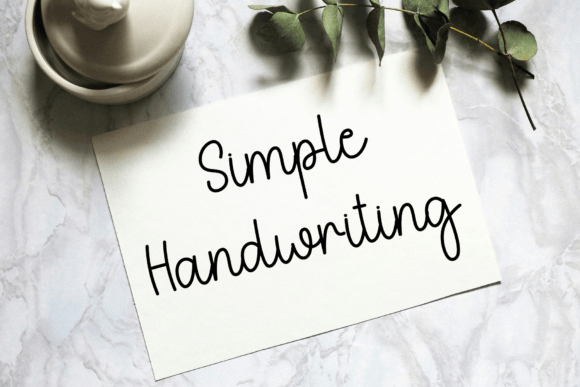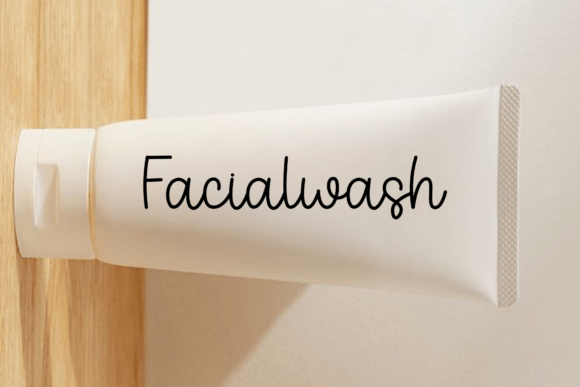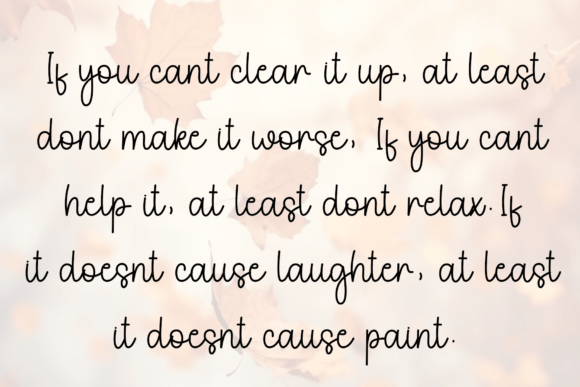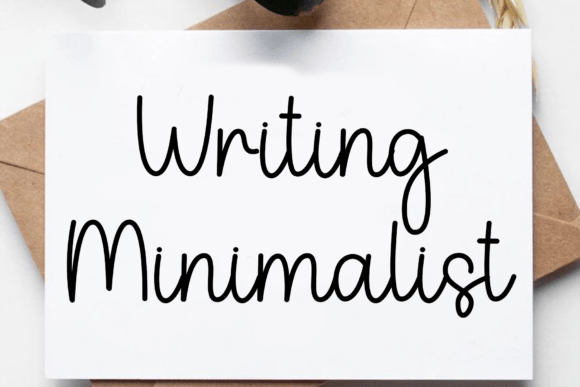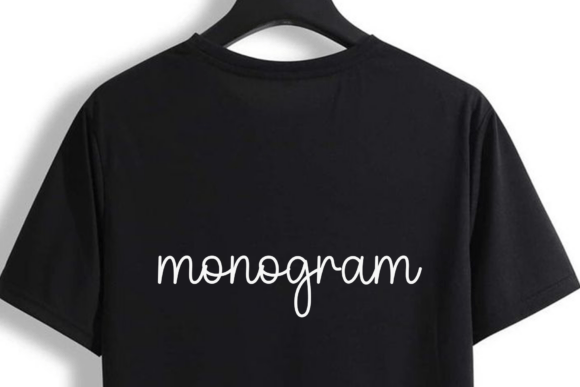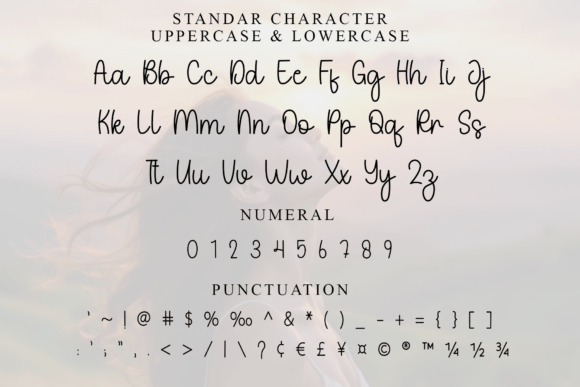
Introducing Envellope Font: The Festive and Merry Typeface for Holiday Designs
Are you looking for a font that embodies the spirit of the holiday season? Look no further than Envellope Font, a decorative and whimsical typeface that adds a touch of enchantment to your designs. With its festive elements and nostalgic ambiance, Envellope Font is perfect for greeting cards, gift tags, and holiday-themed projects.
The Magic of Envellope Font
Envellope Font is a carefully crafted typeface that captures the essence of the holiday season. Its decorative elements and whimsical flair make it an ideal choice for designers and crafters who want to add a touch of magic to their work. Whether you’re creating greeting cards, gift tags, or holiday-themed projects, Envellope Font brings a cheerful and nostalgic ambiance to your words.
One of the standout features of Envellope Font is its PUA encoding, which makes it easy to access all of the amazing glyphs and ligatures. This means that you can effortlessly add decorative elements to your designs, taking them to the next level. With Envellope Font, you can let your typography shine with the magic of beautiful font.
Perfect for Holiday Designs
Envellope Font is specifically designed for holiday-themed projects, making it a versatile and valuable addition to your font collection. Here are just a few ways you can use Envellope Font to elevate your designs:
- Greeting Cards: Create festive and personalized greeting cards for friends and family with Envellope Font. Its decorative elements and whimsical flair make it perfect for holiday cards.
- Gift Tags: Add a touch of magic to your gift tags with Envellope Font. Its nostalgic ambiance and cheerful vibe make it ideal for gift tags and labels.
- Holiday-Themed Projects: Whether you’re creating a holiday-themed party invitation, flyer, or social media post, Envellope Font is the perfect choice. Its festive elements and decorative flair make it a versatile font that can be used in a variety of projects.
Why Choose Envellope Font?
With so many fonts to choose from, why should you choose Envellope Font for your holiday designs? Here are just a few reasons:
- Unique and Festive: Envellope Font is a unique and festive typeface that captures the spirit of the holiday season. Its decorative elements and whimsical flair make it stand out from other fonts.
- Easy to Use: Envellope Font is PUA encoded, making it easy to access all of the amazing glyphs and ligatures. This means that you can effortlessly add decorative elements to your designs.
- Versatile: Envellope Font is a versatile font that can be used in a variety of projects, from greeting cards and gift tags to holiday-themed parties and social media posts.
Tips for Using Envellope Font
Here are a few tips for using Envellope Font in your holiday designs:
- Experiment with Glyphs and Ligatures: With Envellope Font’s PUA encoding, you can easily access all of the amazing glyphs and ligatures. Experiment with different combinations to add a unique touch to your designs.
- Pair with Other Fonts: Envellope Font pairs well with other fonts, so don’t be afraid to experiment with different combinations. This can add visual interest and depth to your designs.
- Use in Combination with Images: Envellope Font looks great when used in combination with images, such as holiday-themed illustrations or photographs. Experiment with different combinations to create visually appealing designs.
Envellope Font is a festive and merry typeface that captures the spirit of the holiday season. With its decorative elements and whimsical flair, it adds a touch of enchantment to your designs. Perfect for greeting cards, gift tags, and holiday-themed projects, Envellope Font brings a cheerful and nostalgic ambiance to your words. Let your typography shine with the magic of Beautiful Font!